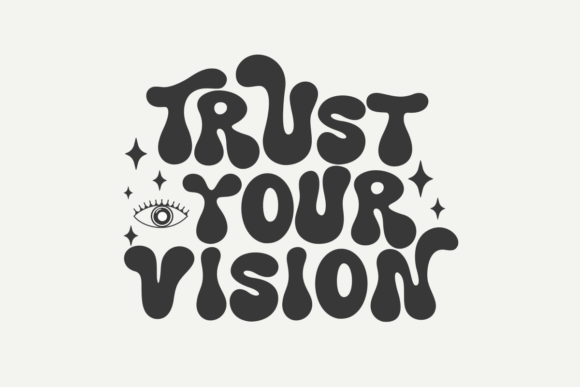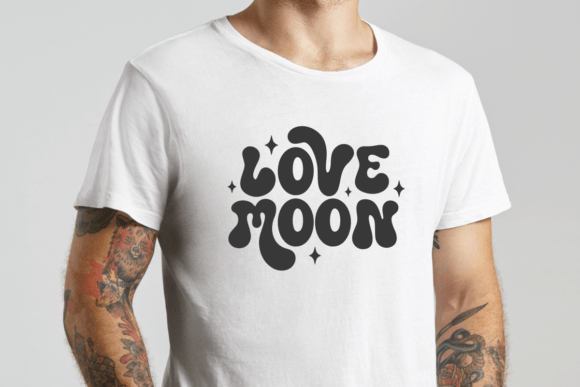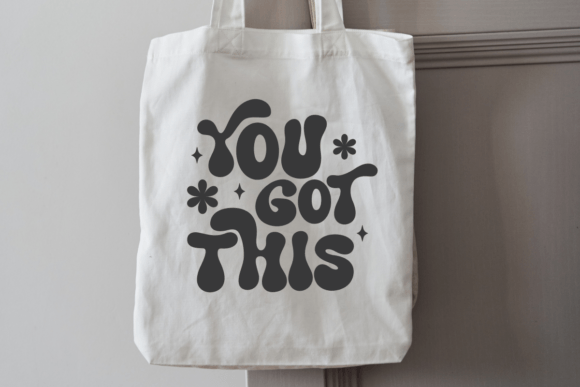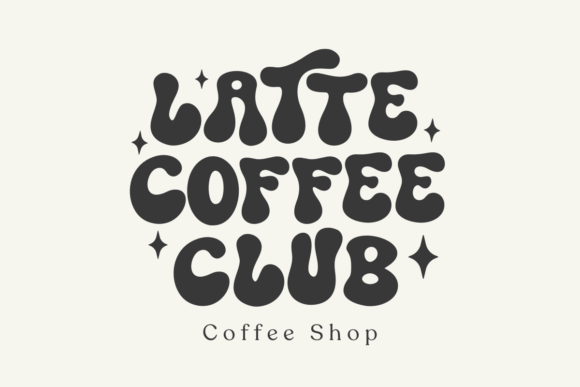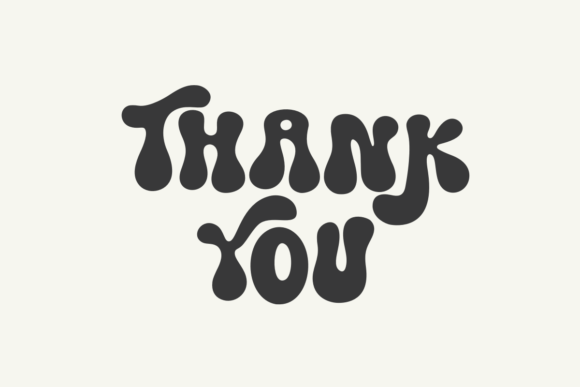
Introduction to More Dance Font
Have you ever stumbled upon the perfect font that instantly sparks your creativity and transports you to a world of endless possibilities? That’s exactly what happened to us when we discovered the enchanting More Dance Font. As designers, we’ve all been there – searching for that elusive combination of style, elegance, and character that elevates our creative projects to the next level.
More Dance Font is more than just a typeface – it’s a design resource that embodies the essence of a bygone era, infused with a touch of psychedelic flair. Its unique blend of vintage charm and modern sophistication makes it the perfect addition to any design, whether it’s a high-quality print, a digital graphic, or even a free download with a transparent background.
As a valuable asset for designers, More Dance Font offers a level of creativity and flexibility that’s hard to find elsewhere. With its effortless style and timeless appeal, it’s no wonder why this font has become a go-to choice for designers looking to add a touch of modish sophistication to their work.
Key Features of More Dance Font
- High-quality design resource ideal for creative projects, including dance-themed posters, flyers, and social media graphics.
- Unique, hand-drawn design with a transparent background, making it easy to customize and integrate with other design elements.
- Large character set, including uppercase and lowercase letters, numbers, and punctuation marks, making it suitable for a wide range of applications.
- Perfect for designers and artists looking for a creative, high-quality design resource to elevate their work and stand out from the crowd.
Honest Review: More Dance Font
I recently had the chance to work with the More Dance Font, and I must say it’s been a game-changer for my creative projects. This high-quality design resource is perfect for anyone looking to add a touch of elegance and sophistication to their work.
- ✨ The font is incredibly versatile, suitable for a wide range of creative projects, from wedding invitations to dance-themed posters.
- ✨ The transparent background allows for seamless integration with other design elements, giving me more control over the final product.
- ⚠️ The font is only available in a few styles, which may limit its use in certain creative projects.
- ⚠️ The transparent background can sometimes make it difficult to read the text, especially on darker backgrounds.
Overall, I’m really impressed with the More Dance Font. Its high quality and versatility make it a valuable addition to any designer’s toolkit. While it may have some limitations, I believe the benefits far outweigh the drawbacks. If you’re looking for a reliable design resource, I would definitely recommend giving the More Dance Font a try.
The More Dance Font is perfect for a variety of creative projects, including dance-themed posters, event invitations, and social media graphics. Its high-quality design and transparent background make it a valuable design resource.